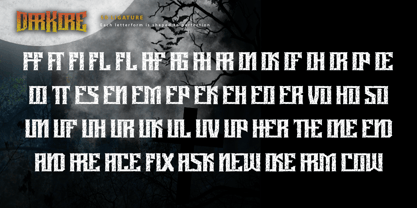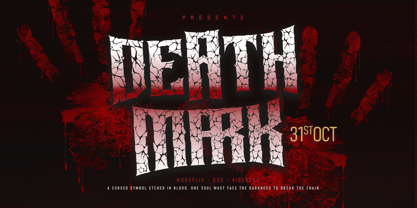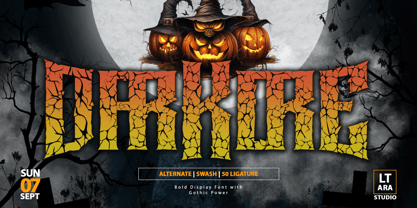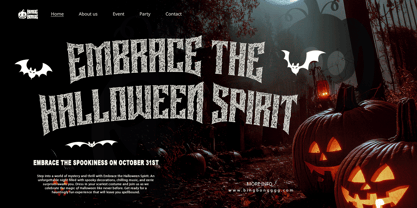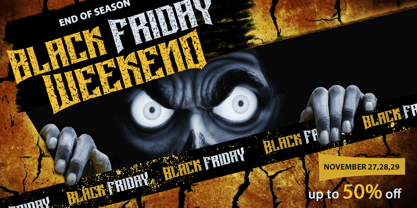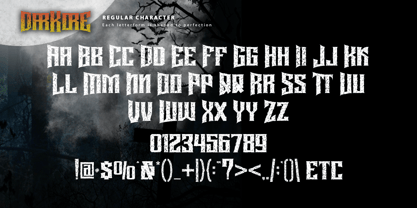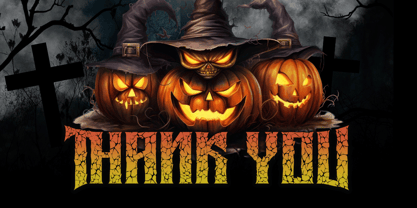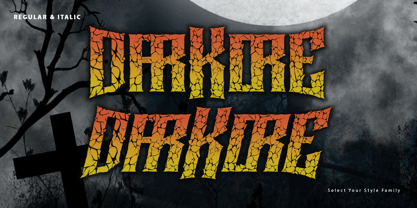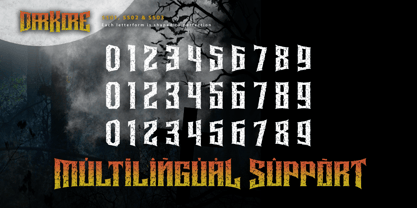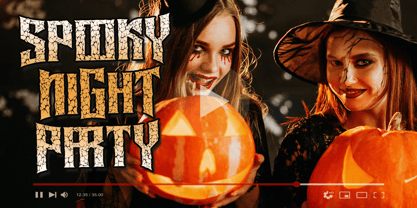
Darkore
by Letterara
The Darkore Font Family was designed by Thomas Aradea and published by Letterara. Darkore contains 2 styles and family package options. More about this family
Introducing Darkkore, a bold display font forged with gothic power and a cracked texture that commands attention. Its sharp edges, dramatic forms, and eerie atmosphere make it perfect for horror posters, Halloween events, metal band logos, or any design that needs a fearless statement. Packed with alternates, swashes, ligatures, and multilingual support, Darkkore gives you full creative control to unleash darkness with style. Step into the shadows and let Darkkore turn your designs into haunting works of art.
Designers: Thomas Aradea
Foundry: Letterara